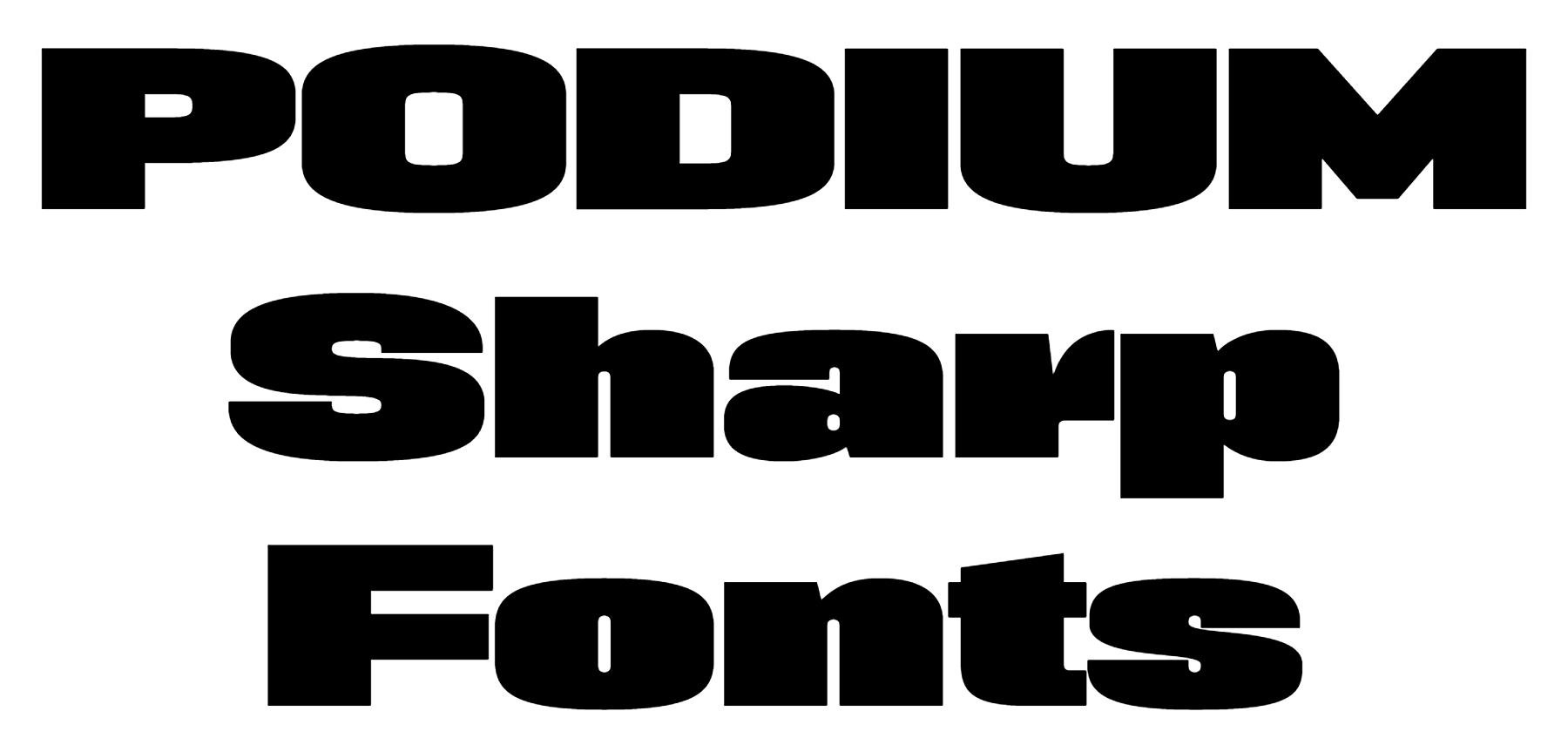
PODIUM Sharp
PODIUM Sharp is a sans serif font designed by Mateusz Machalski and published by MACHALSKI.WTF (2012). It has a clean, no-nonsense look that fits modern brands and websites. It's a free download, and you can try it with your own text in the preview above first.
- Designer: Mateusz Machalski
- Publisher: MACHALSKI.WTF
- Width: Ultra-expanded
PODIUM Sharp covers the full alphabet in upper and lowercase, plus all ten numbers, so you can set names, dates and prices without switching fonts. Common punctuation such as &, !, ? and @ is included as well. It doesn't include accented letters such as é or ñ, which makes it an English-only font.
Think of PODIUM Sharp for websites, app screens and clean logos. The letters are wide, so it looks best with short words and plenty of horizontal space. It works for headings and body text alike. If the download has several weights, use a heavier one for titles and a lighter one for paragraphs.